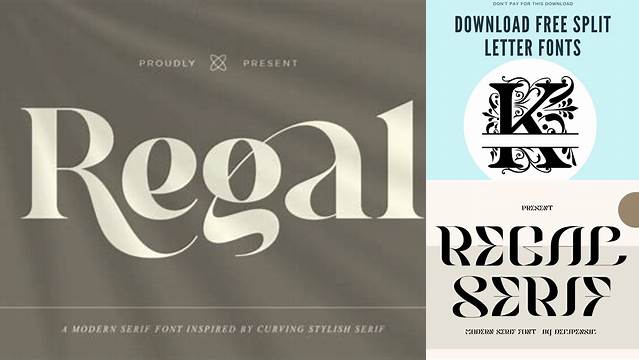
Regal Split Font: Free Download Guide
Hey guys! Are you on the hunt for that perfect font to give your designs a touch of elegance and uniqueness? Look no further! The regal split font is a fantastic choice for adding a sophisticated, yet modern, flair to your projects. This guide will walk you through everything you need to know about this font, where to find it for free, and how to use it effectively. Let's dive in!
1. Understanding the Allure of Regal Split Fonts
The regal split font isn't just another typeface; it's a statement. Its distinctive design, characterized by subtle breaks or splits within the characters, lends an air of sophistication and contemporary style. This unique feature sets it apart from conventional fonts, making it a favorite among designers aiming for a blend of classic elegance and modern flair. The allure of the regal split font lies in its ability to capture attention without being overly assertive, making it suitable for a wide array of applications, from branding to editorial design. Using a regal split font in your projects conveys a sense of refinement and attention to detail, which can significantly enhance the overall visual appeal and perceived quality of your work. It's like adding a touch of royalty to your typography, ensuring your message is not only read but also remembered. This makes the regal split font a valuable asset in any designer's toolkit.
2. Key Features That Define Regal Split Fonts
So, what exactly makes a regal split font stand out? Well, the key feature, as the name suggests, is the 'split' within the letters. This isn't just a random cut; it's a carefully crafted break that adds a visual interest without compromising readability. The best regal split fonts balance this split with the overall structure of the letter, maintaining a harmonious and elegant look. Beyond the split, these fonts often boast a refined and sophisticated aesthetic. They usually come in various weights, from light and airy to bold and impactful, allowing you to adapt the font to different design needs. Furthermore, many regal split fonts include stylistic alternates and ligatures, giving you even more creative control. Imagine using a regal split font for a wedding invitation; the subtle breaks add a touch of romance and uniqueness that a standard font simply couldn't achieve. The elegance and versatility of these fonts make them a go-to choice for projects that demand a touch of class and modernity.
7. Using Regal Split Fonts in Graphic Design Projects
Now that you've got your regal split font installed, let's talk about how to use it effectively in your graphic design projects. This font style is incredibly versatile, but like any design element, it's all about context and balance. Regal split fonts often shine in headlines and titles, where their unique character can really make an impact. Think about using it for a wedding invitation, a luxury brand logo, or a sophisticated website header. However, because of the decorative nature of the split, it's best to use it sparingly. Too much regal split font in body text can become hard to read. Pair it with a simpler, more legible font for the main body of your text. Experiment with different weights and sizes to see what works best for your design. Also, consider the overall tone of your project. Regal split fonts generally convey elegance and modernity, so they might not be the best choice for a project that needs to feel rustic or playful. When used thoughtfully, a regal split font can add that perfect touch of sophistication to your designs, setting them apart and capturing attention.
8. Pairing Regal Split Fonts with Other Typefaces
One of the keys to using a regal split font effectively is pairing it with the right companion typefaces. Because regal split fonts are often quite decorative and eye-catching, they usually work best when paired with simpler, more neutral fonts. Think of it like this: the regal split font is the star of the show, and the other font is the supporting cast. A classic pairing is a regal split font for headlines or titles with a clean sans-serif font like Helvetica or Arial for body text. This creates a nice contrast and ensures readability. Another option is to pair it with a more traditional serif font like Times New Roman or Garamond, which can create a sophisticated and timeless look. The trick is to choose a font that complements the regal split font without competing with it. Avoid pairing it with another highly decorative font, as this can create a cluttered and overwhelming design. Experiment with different combinations to see what works best for your project. A great way to test pairings is to create a mock-up of your design with different font combinations and see how they look together in context. With a little experimentation, you'll find the perfect font pairing to make your regal split font truly shine.
9. Designing Logos with Regal Split Fonts
If you're looking to create a logo that exudes sophistication and modernity, a regal split font can be an excellent choice. The unique split in the letters adds a distinctive touch that can make your logo stand out. However, designing a logo with a regal split font requires careful consideration. The font's inherent elegance makes it particularly well-suited for brands in the luxury, fashion, or beauty industries. Think of a high-end jewelry brand or a boutique hotel – a regal split font can perfectly capture their refined aesthetic. When using a regal split font in a logo, simplicity is key. Avoid adding too many other decorative elements, as this can clutter the design and detract from the font's impact. Focus on the font itself and how it represents the brand's personality. Consider the weight and size of the font, as well as the spacing between letters. Sometimes, a slight adjustment to the kerning (the space between letters) can make a big difference. Also, think about color. A regal split font often looks stunning in classic colors like black, white, or gold. By using the regal split font thoughtfully, you can create a logo that is both memorable and elegant.
30. The Impact of Regal Split Fonts on User Experience
In the world of design, user experience (UX) is king. Everything from the layout of your website to the color scheme you choose impacts how users interact with your content. Typography is a crucial element of UX, and the fonts you choose can significantly influence how users perceive and engage with your designs. A regal split font can add a touch of elegance and sophistication, but it's important to consider how it affects readability and overall user experience. While a regal split font can be visually appealing, it's not always the best choice for long passages of text. The split in the letters can make it more difficult to read for some users, especially on screens. For body text, it's generally best to choose a clean and legible font that is specifically designed for on-screen reading. Fonts like Arial, Helvetica, or Open Sans are excellent choices for body text because they are easy to read at various sizes and on different devices. A regal split font can be effective for headlines, titles, and other short pieces of text where you want to grab attention and create a visual impact. However, it's important to use it sparingly and avoid overusing it. When incorporating a regal split font into your designs, consider the overall context and the needs of your users. Prioritize readability and make sure the font enhances the user experience rather than detracting from it. By making thoughtful font choices, you can create designs that are both beautiful and user-friendly.